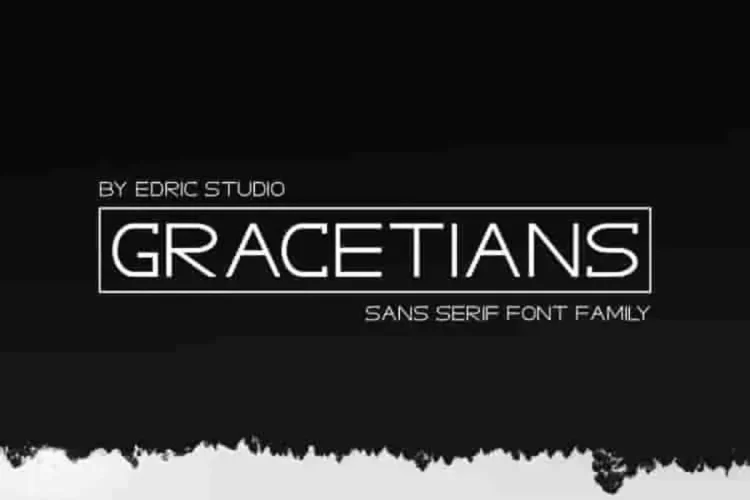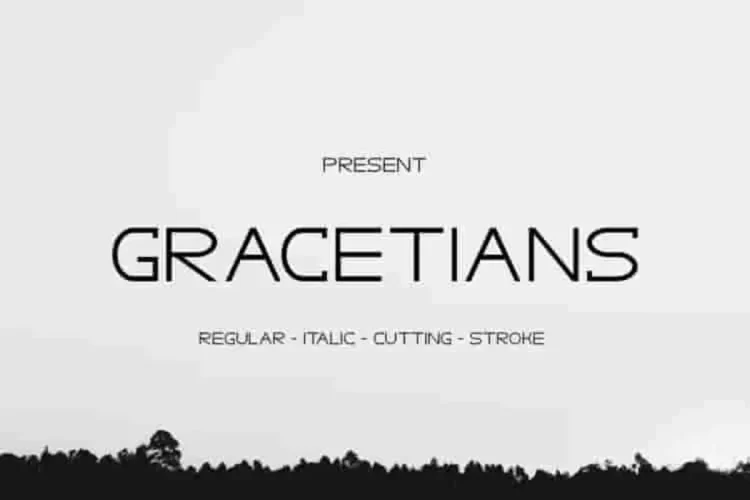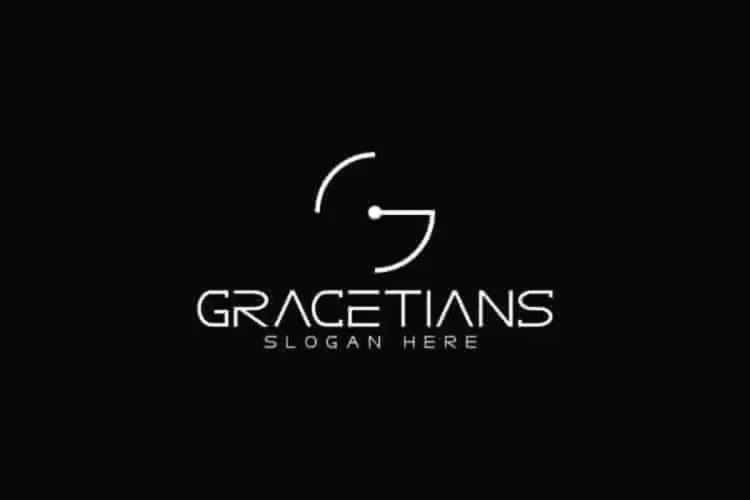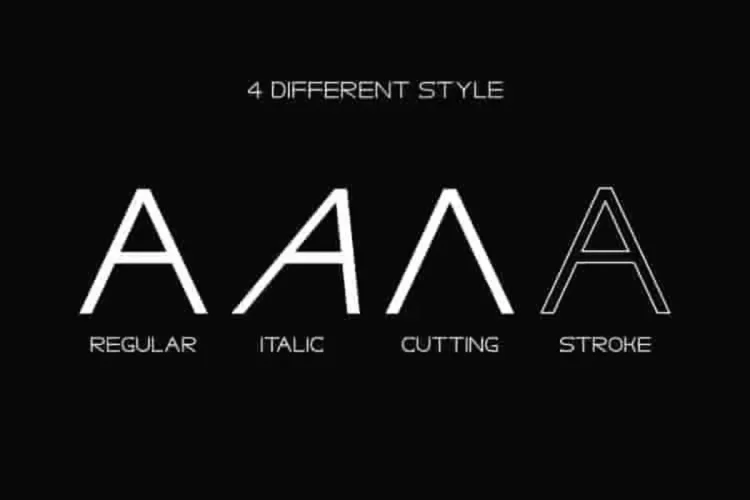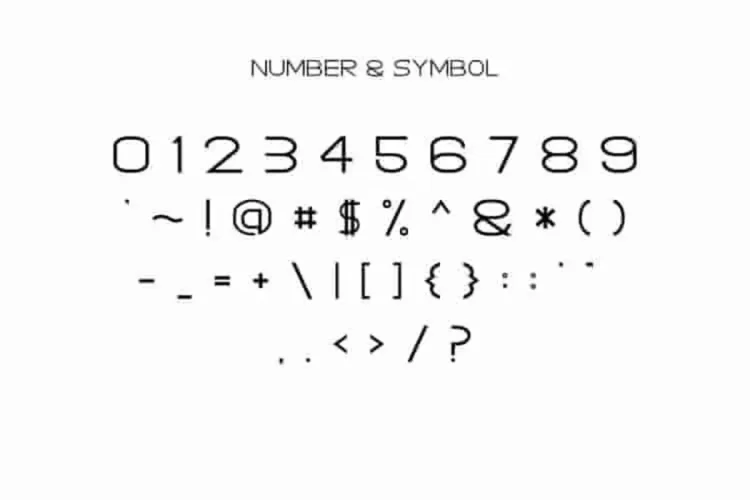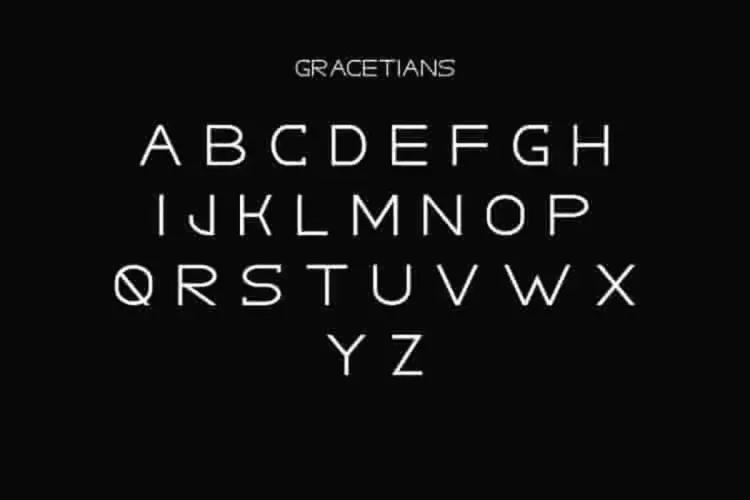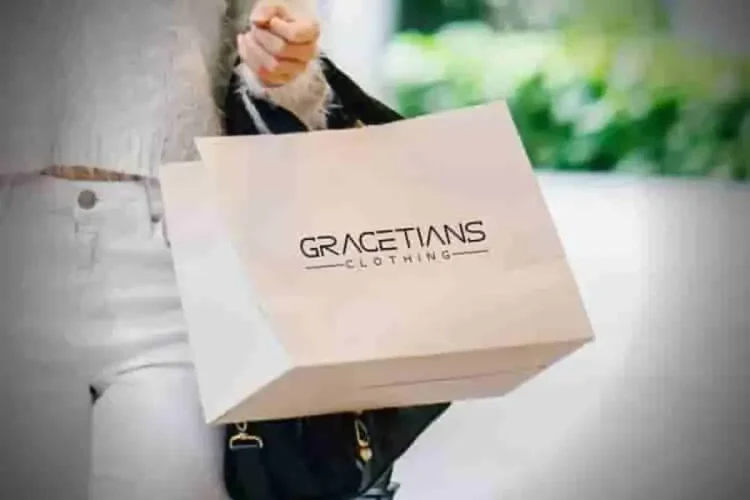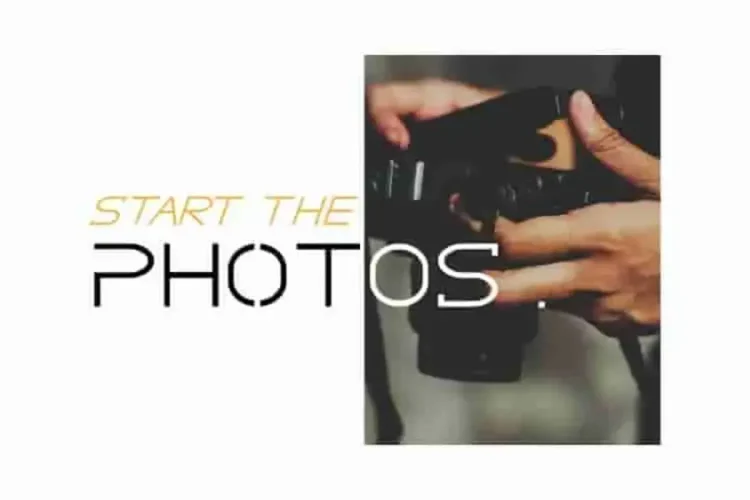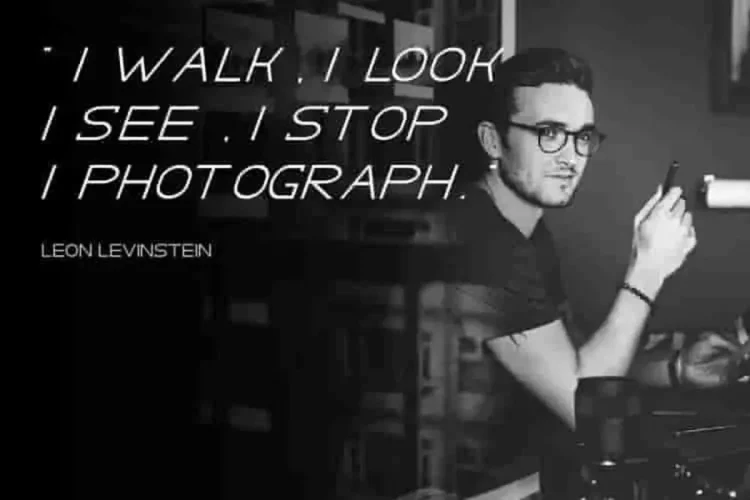
GRACETIANS Sans Serif Display Font
Introducing: GRACETIANS — Modern Sans Serif Display Font
GRACETIANS is a modern futuristic yet stylish font. This is a new kind of SANS Display font. Designed with unique, exclusive glyphs, this font brings attitude and edge to any project.
🧩 4 Unique Styles. One Cohesive Font Family.
GRACETIANS isn’t just one font—it’s a collection of 4 distinctive styles, crafted to adapt to a wide range of design moods and needs:
• Regular – Clean, geometric, and strong. Perfect for titles, branding, or minimalist designs that require clarity and structure.
• Italic – A sleek, forward-leaning version with futuristic motion. Great for tech products, digital interfaces, or brands that want a sense of progress and speed.
• Cutting – A stylized version with angular slices and broken forms. This one’s made for bold statements, logos, or creative industries looking to break the mold.
• Stroke – A linear, outlined variant with elegance and openness. Ideal for editorial titles, fashion branding, or tech magazine layouts that need elegance and airiness.
Each style complements the others while maintaining its own visual identity—giving you the freedom to mix and match within the same design system.
Will be perfect for branding, logo, etc. It is light but beautiful. Great for stationery, business card, signage, flyer, brochure etc. There are many industries that is suitable for this font : construction, real estate, services, law firm, startup, apps, technology, agency, studio etc